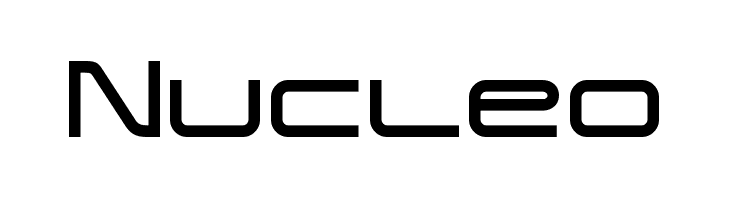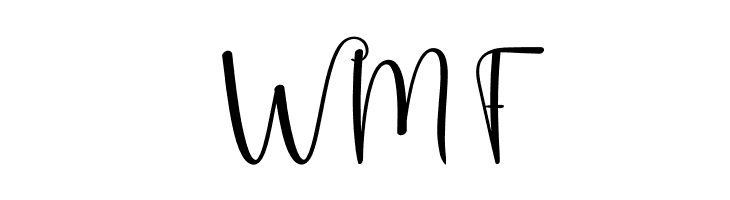
A flowing, handwritten script font with elegant curves and a playful, sophisticated style.
A playful, hand-drawn font with dynamic strokes and artistic flair.
A bold, geometric outline font with a retro, pixelated style and an italic slant.
A high-contrast, elegant serif font with a modern yet classic appeal.
A playful, handwritten script font with smooth, rounded strokes.
A dynamic and flowing script font with elegant curves and a slightly slanted style.
A lively, expressive handwritten font with fluid, dynamic strokes.
An elegant, high-contrast cursive script font with flowing, ornate characters.
A bold, angular font with a futuristic and dynamic style.
A bold, italic font with strong, consistent strokes and excellent readability.
A bold, pixelated font with a retro digital aesthetic.
A geometric, futuristic font with a grid-like, angular design.
A bold, condensed font with a geometric, pixelated style.
A bold, geometric font with a modern, three-dimensional appearance.
A bold, angular, and futuristic italic font with a dynamic and edgy style.
A bold serif font with strong strokes and classic design.
A playful, handwritten font with a dynamic and informal style.
A casual, handwritten font with a dynamic and lively appearance.
A sleek, modern thin italic font with a minimalist and elegant design.
Modern, geometric sans-serif with high legibility and open forms.
A bold, distressed font with a rugged, grunge-like appearance.
A bold, geometric font with a modern, industrial aesthetic.
A playful, casual handwritten script with thin, flowing lines.
A decorative font with playful patterns and motifs, ideal for eye-catching designs.
A playful, handwritten font with rounded edges and a whimsical style.
A playful, jagged font with a hand-cut, artistic style.
A playful, handwritten font with a casual and dynamic style.
A bold, italic font with a three-dimensional striped effect.
A bold, gothic-style font with intricate, angular strokes and a blackletter influence.
A bold, futuristic font with sharp angles and a stencil-like design.
A graceful handwritten font with fluid, connected letterforms and a sophisticated style.
A modern cursive font with elegant, flowing lines and bold numerals.
A bold, graffiti-inspired font with sharp, angular strokes.